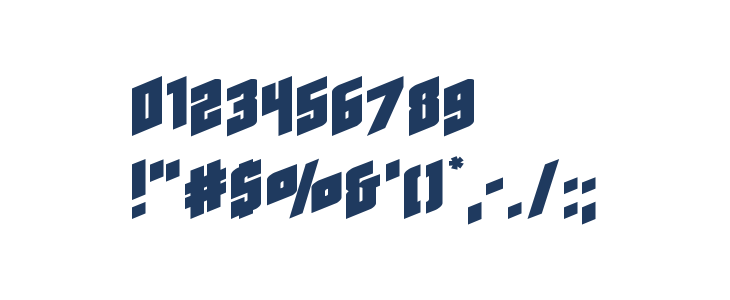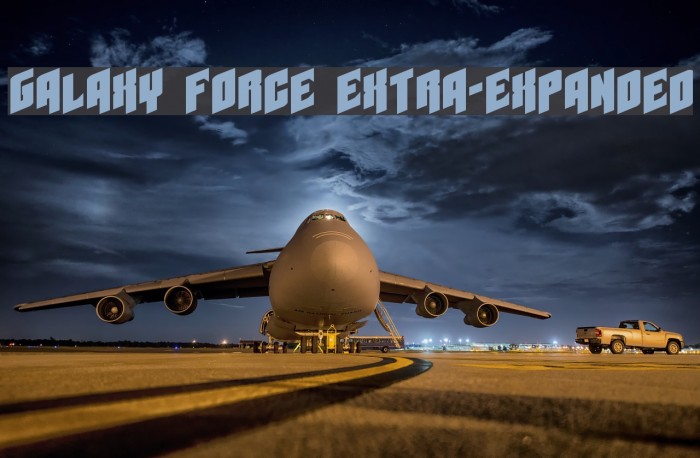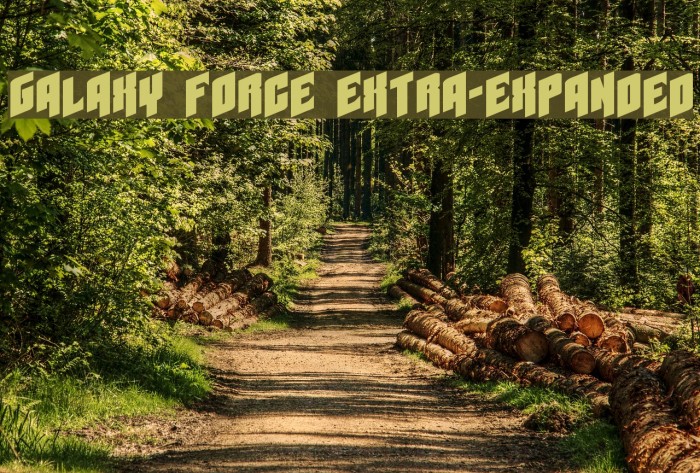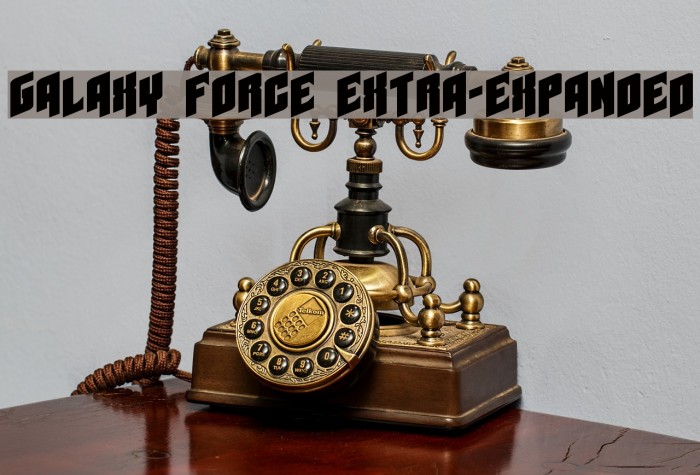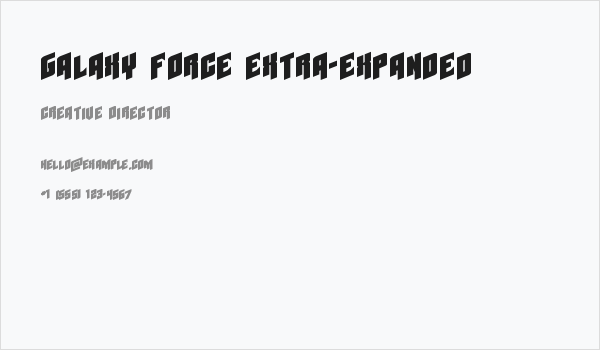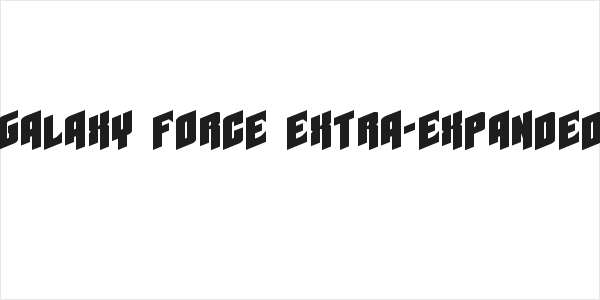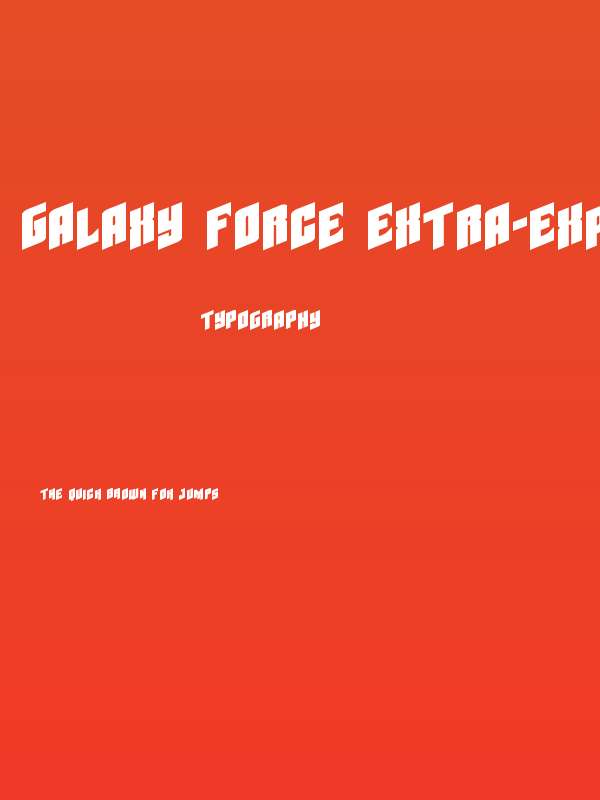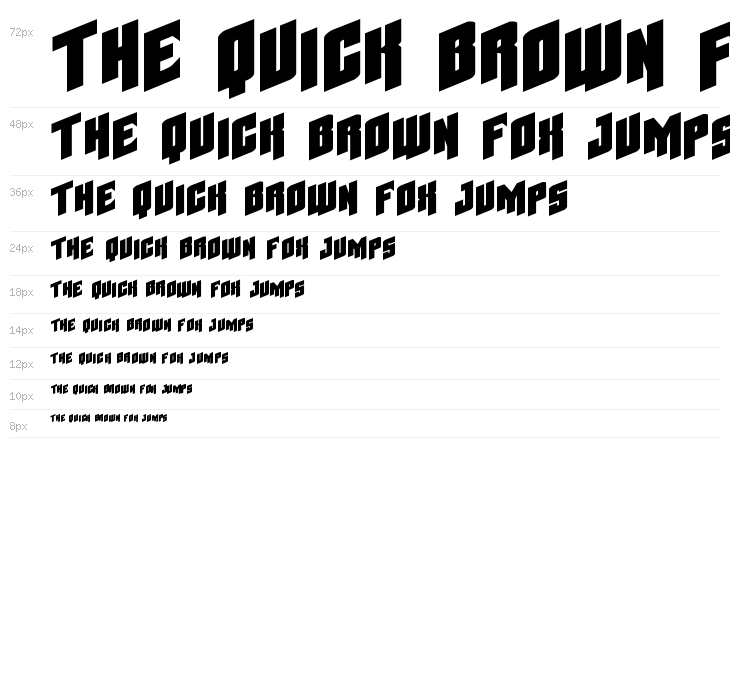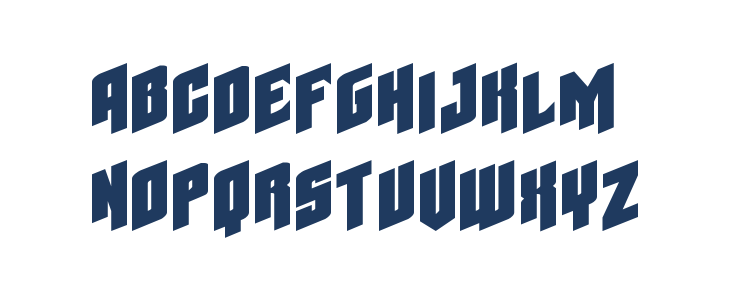
Galaxy Force Extra-Expanded Font
Galaxy Force Extra-Expanded Description
This font features a bold, angular design with a futuristic and dynamic appearance. The characters are sharply cut, giving them a strong and impactful presence. The style is reminiscent of science fiction and high-tech themes, with a sense of motion and energy. The uppercase and lowercase letters maintain a consistent geometric form, while the numbers and special characters complement the overall aesthetic. The font's expanded width adds to its commanding look, making it ideal for attention-grabbing headlines or logos.
| Proposed Projects | Ideal for sci-fi themed projects, video game titles, tech company logos, and futuristic posters. |